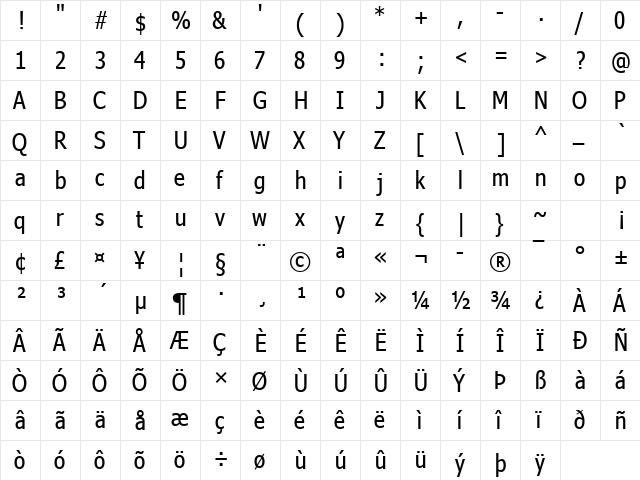
Nina Regular
| Foundry | Microsoft Corp. |
| Designer | Matthew Carter |
Design Context for Nina Typeface
Nina is a composed and adaptable typeface that performs quietly and consistently across a wide range of design contexts.